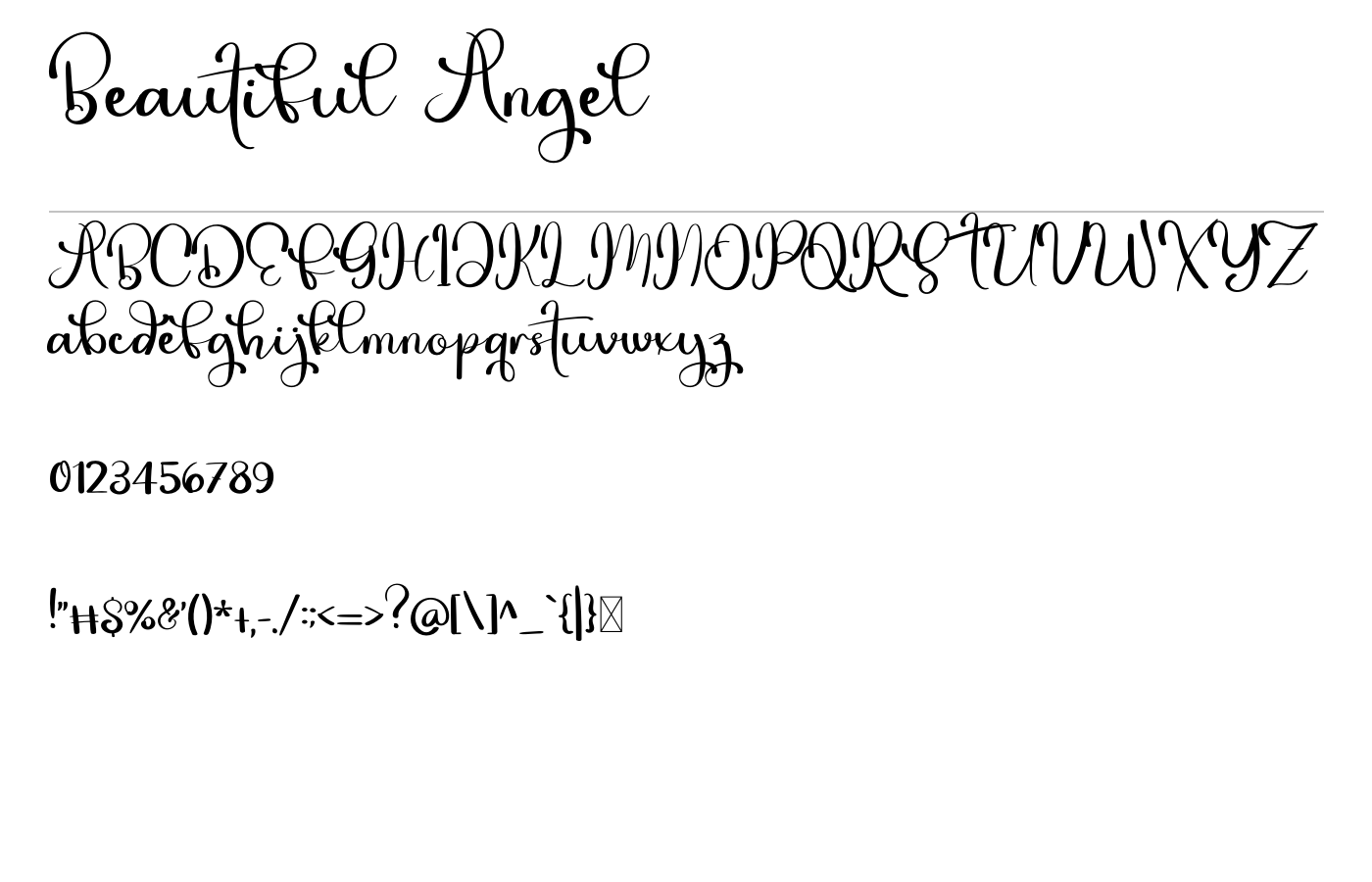
Beautiful Angel is an elegant, script-style font with delicate, flowing letterforms and playful swirls that impart a romantic and whimsical feel. Its slender strokes and decorative curls make it perfect for wedding invitations, feminine branding, and creative headlines where a touch of charm and sophistication is desired. This font works best in designs that aim to convey grace, beauty, and warmth with a stylish, handcrafted look.
Beautiful Angel Font
About Beautiful Angel Font